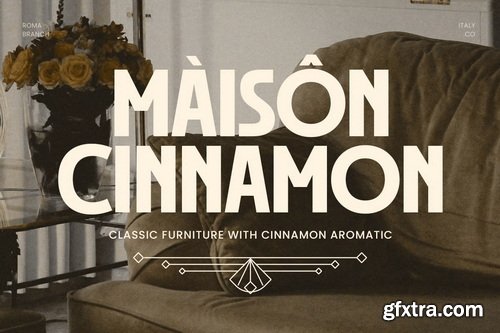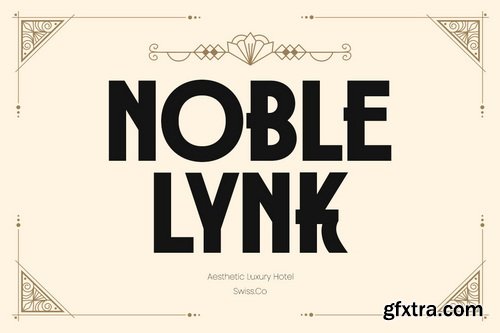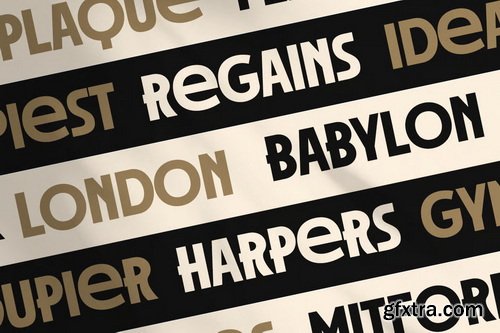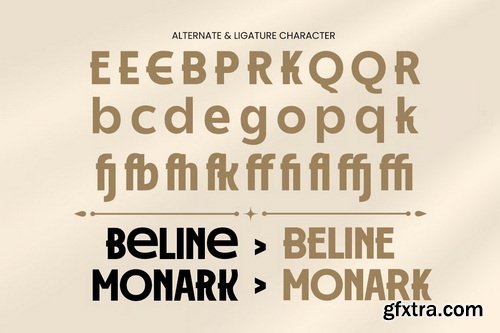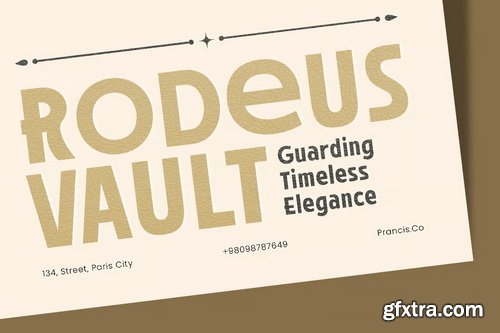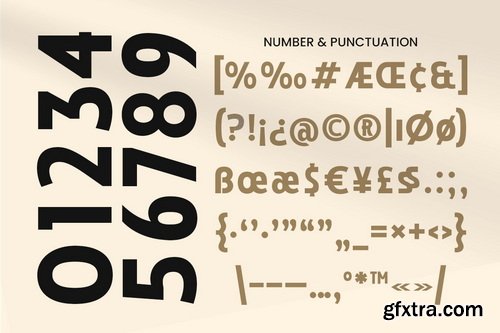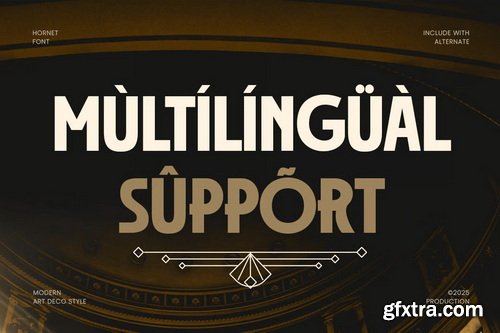
Hornet Modern Art Deco Font
- HORNET is a modern Art Deco font designed to bring elegance and geometric sophistication to your creative projects. Ideal for branding, logos, posters, headlines, and digital or print designs, it blends classic Art Deco aesthetics with a modern twist. With its refined lines and stylish forms, HORNET adds a luxurious, polished look to any project, making it perfect for designers seeking a blend of vintage elegance and contemporary flair.